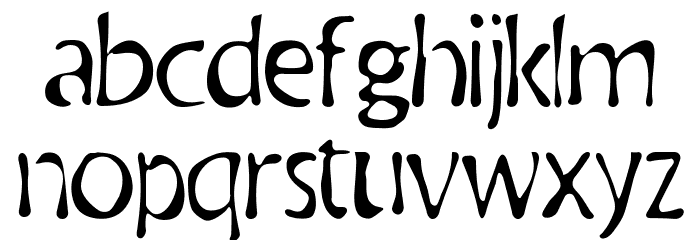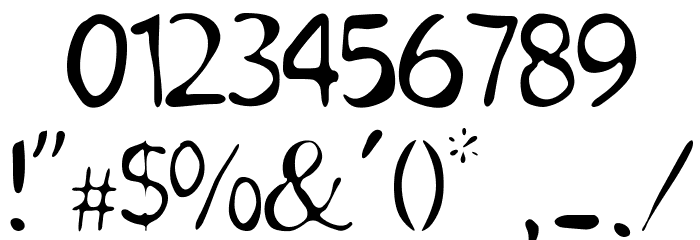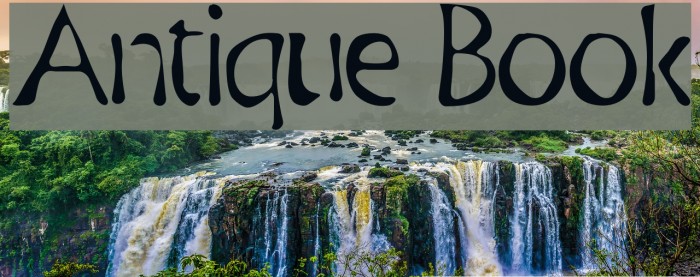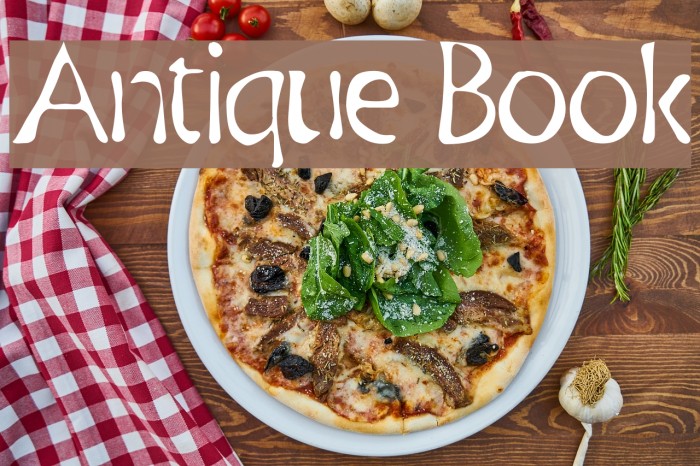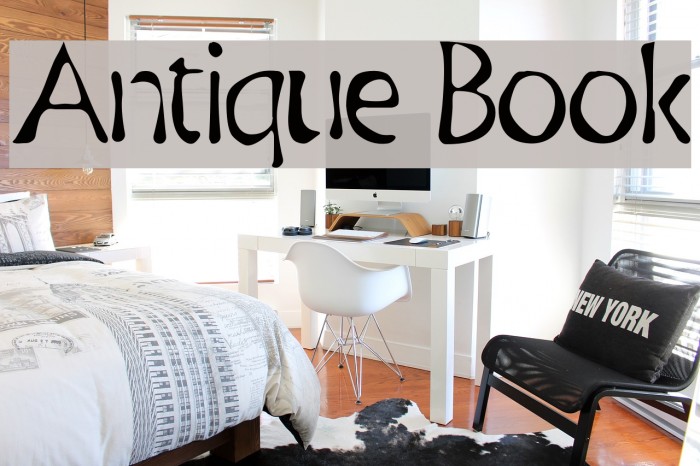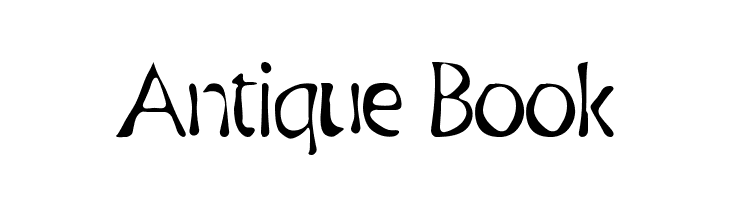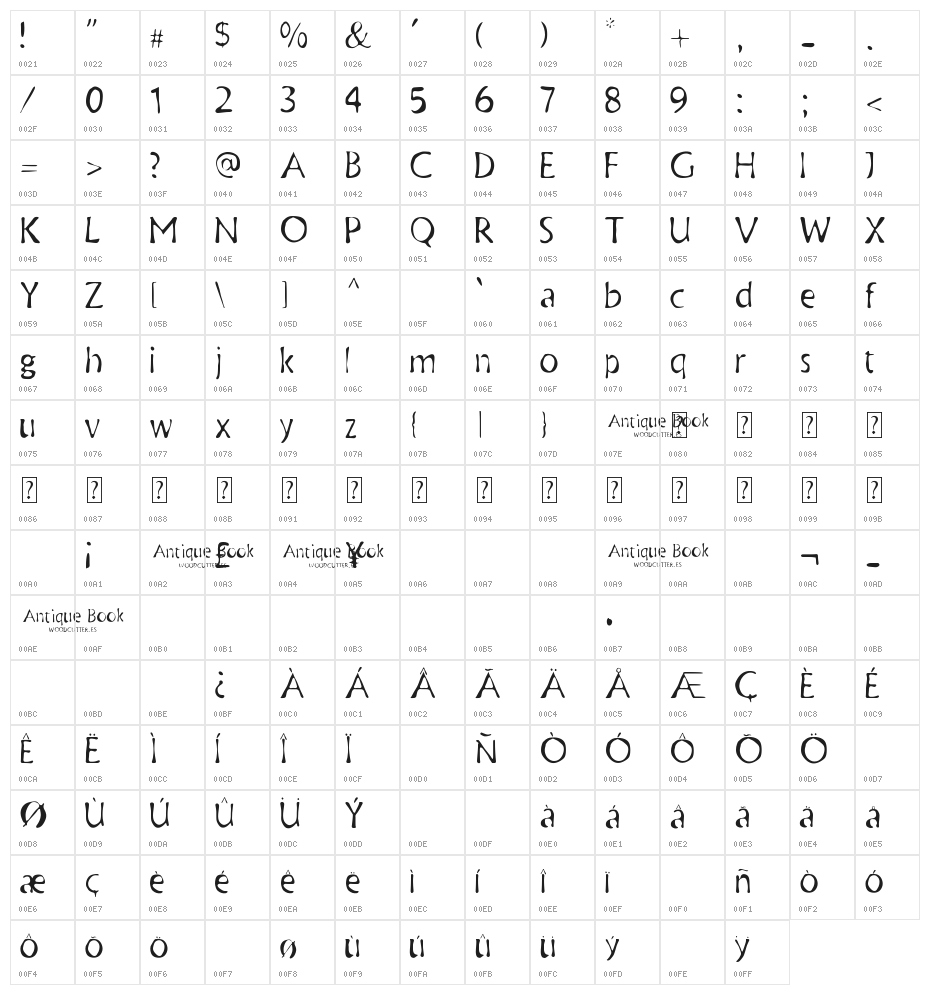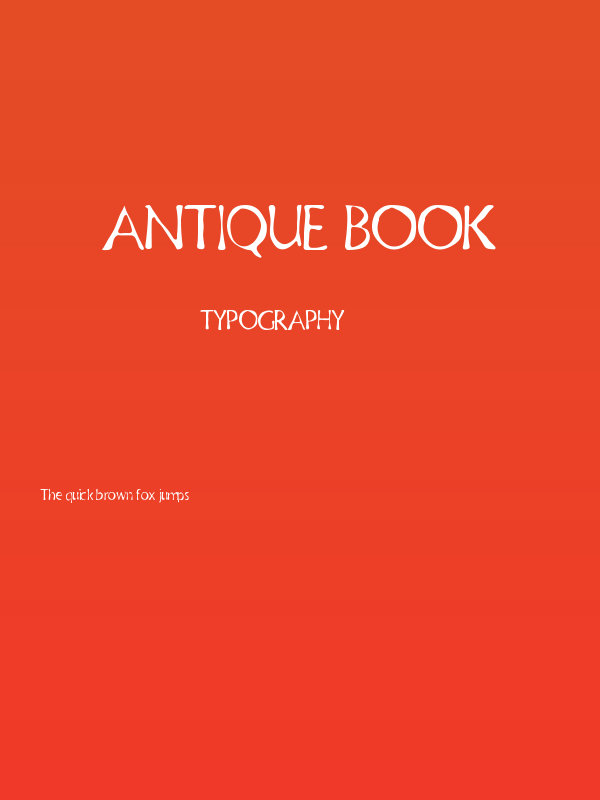
Antique Book Font
This font exhibits a unique blend of vintage and artistic flair, characterized by its irregular and slightly whimsical strokes. The uppercase letters are bold and commanding, with a hand-drawn quality that adds a touch of nostalgia. The lowercase letters maintain a consistent style, with playful curves and varying stroke widths that give them a lively appearance. The numbers are distinct and easy to read, following the same artistic theme. Special characters are creatively designed, adding to the font's overall charm. This font is ideal for projects that require a touch of elegance and creativity, such as book covers, posters, and artistic branding.
A vintage-inspired font with artistic, hand-drawn strokes and playful curves.
- Proposed Projects: Ideal for book covers, posters, artistic branding, and creative projects.
- Overall Style: Vintage, Artistic
- Use Case: Headlines, Logos, Artistic projects